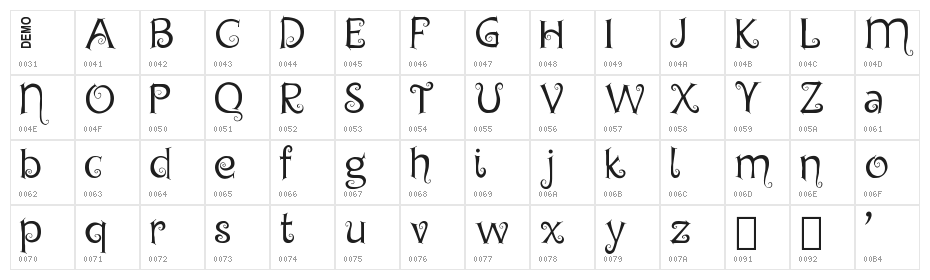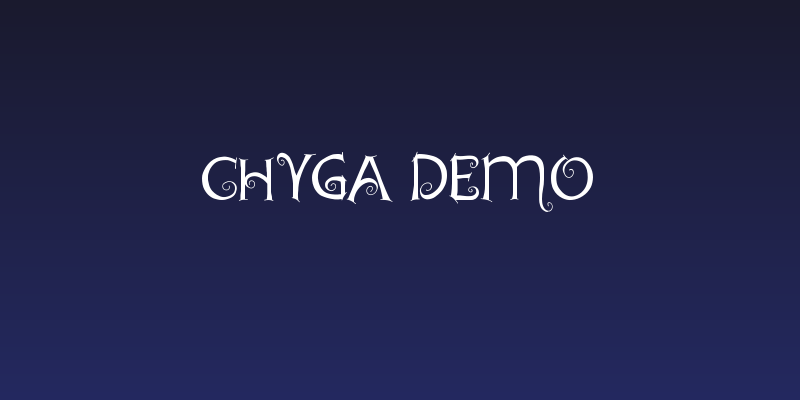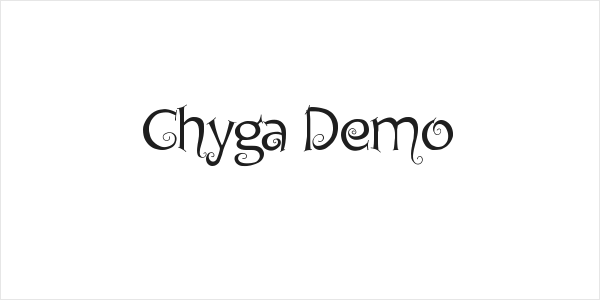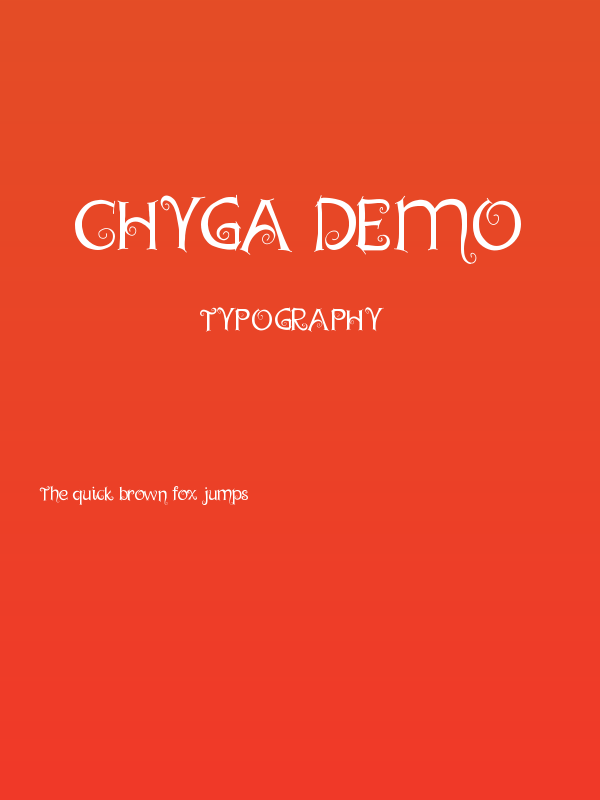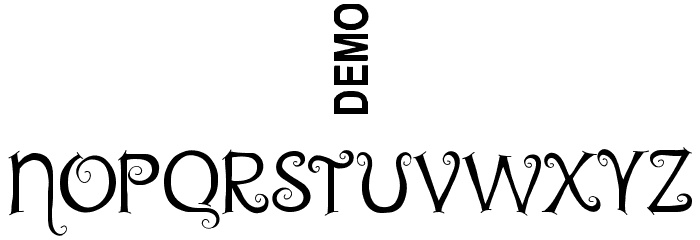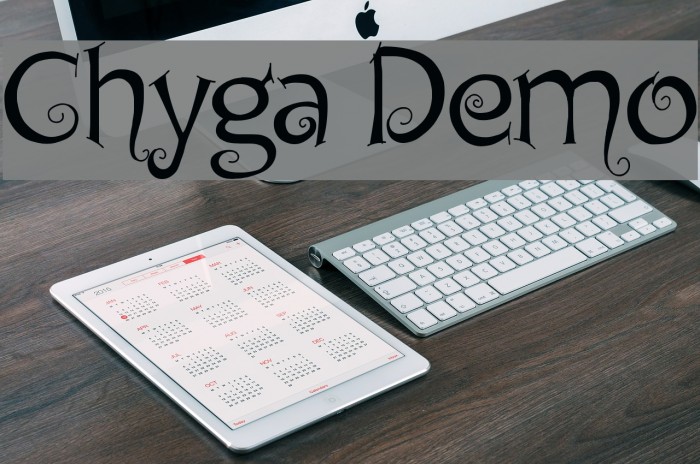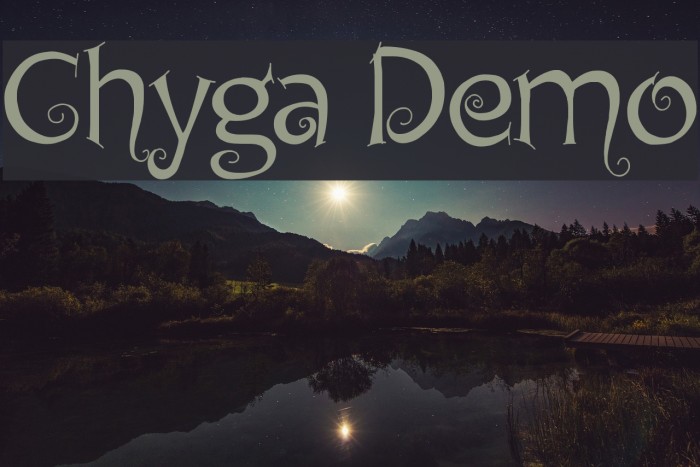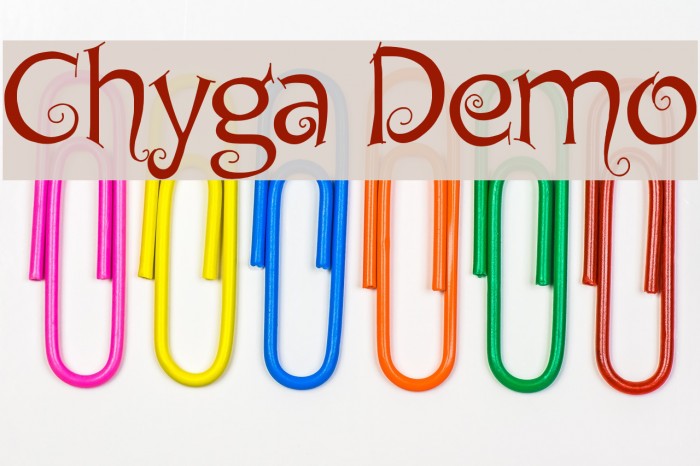
Chyga Demo Font
Chyga Demo Description
This font features a whimsical and decorative style, characterized by its playful curls and swirls extending from the ends of the letters. The uppercase and lowercase letters maintain a consistent design, with each character exhibiting unique flourishes that add to its charm. The font's strokes are moderately thick, providing a balanced contrast that enhances readability while maintaining its artistic flair. The numbers and special characters are designed to match the overall aesthetic, making this font suitable for creative and expressive projects.
| Proposed Projects | Ideal for invitations, greeting cards, posters, and creative branding projects. |